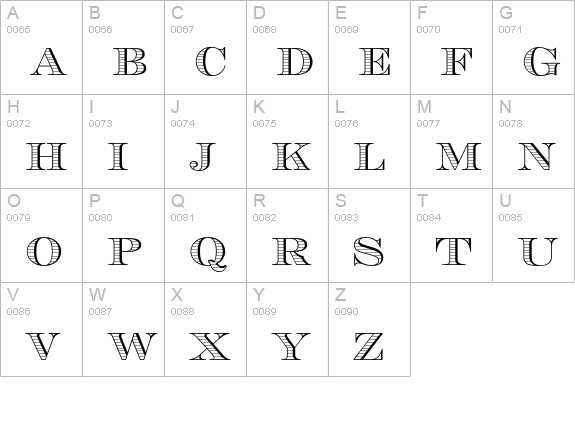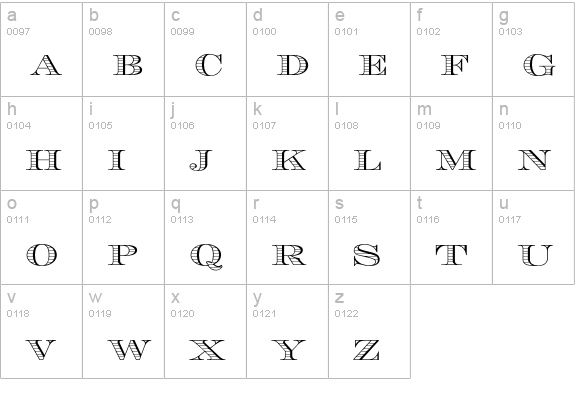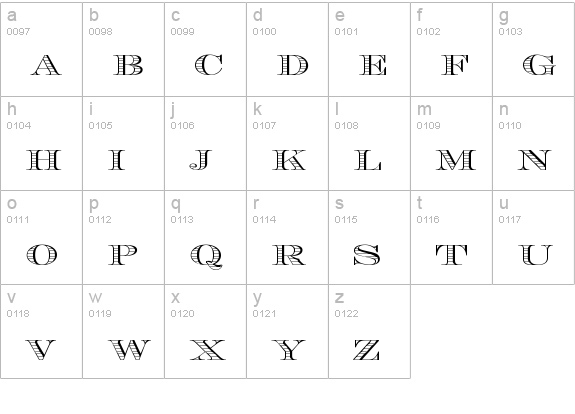
Engravers-Shaded font is a timeless and elegant typeface that exudes sophistication and charm. Its intricate details and subtle shading give it a unique and artistic appeal, making it perfect for adding a touch of class to any design project. This font is versatile and can be used for a wide range of applications, from invitations and wedding stationery to logos and branding. The best part is that Engravers-Shaded font is available for free download at FontsMarket.com. This means you can easily access this stunning font and incorporate it into your creative projects without any cost. Whether you're a designer looking to elevate your work or an individual wanting to add a touch of elegance to your personal projects, Engravers-Shaded font is the perfect choice. Don't miss out on the opportunity to enhance your designs with this beautiful and stylish font. Download Engravers-Shaded today and let your creativity shine!